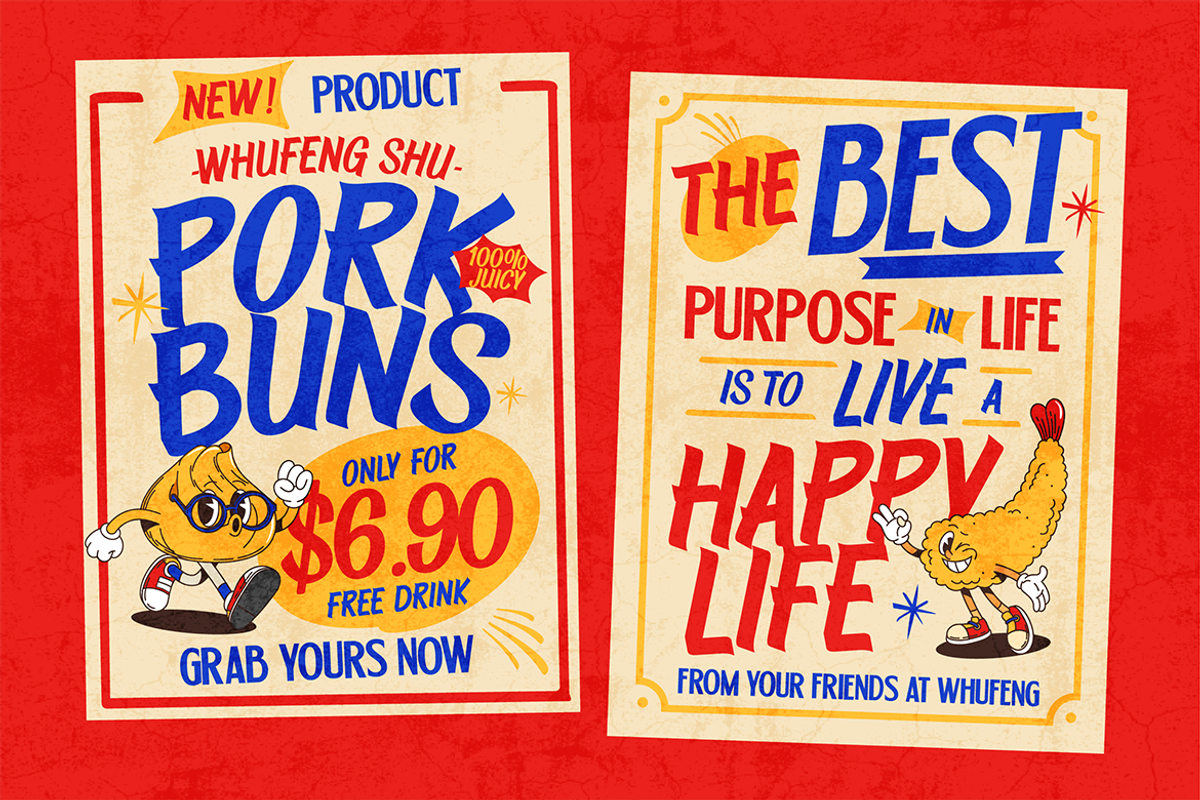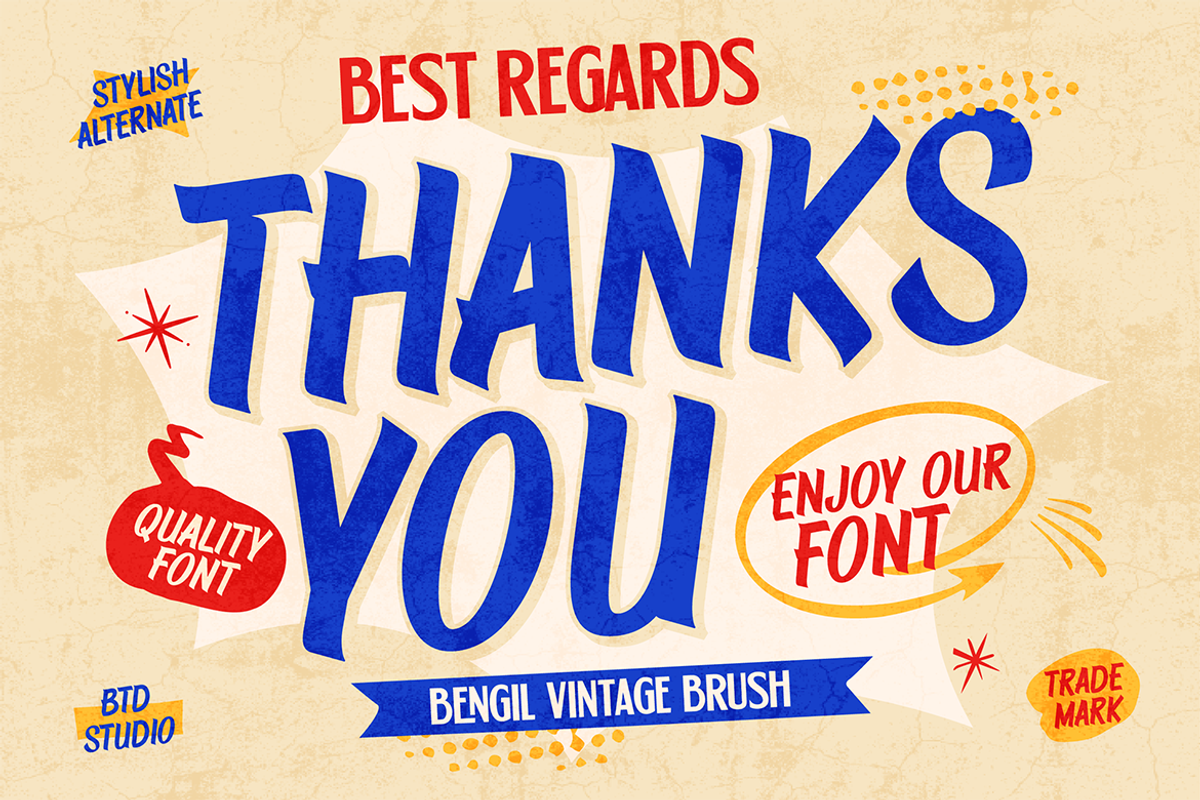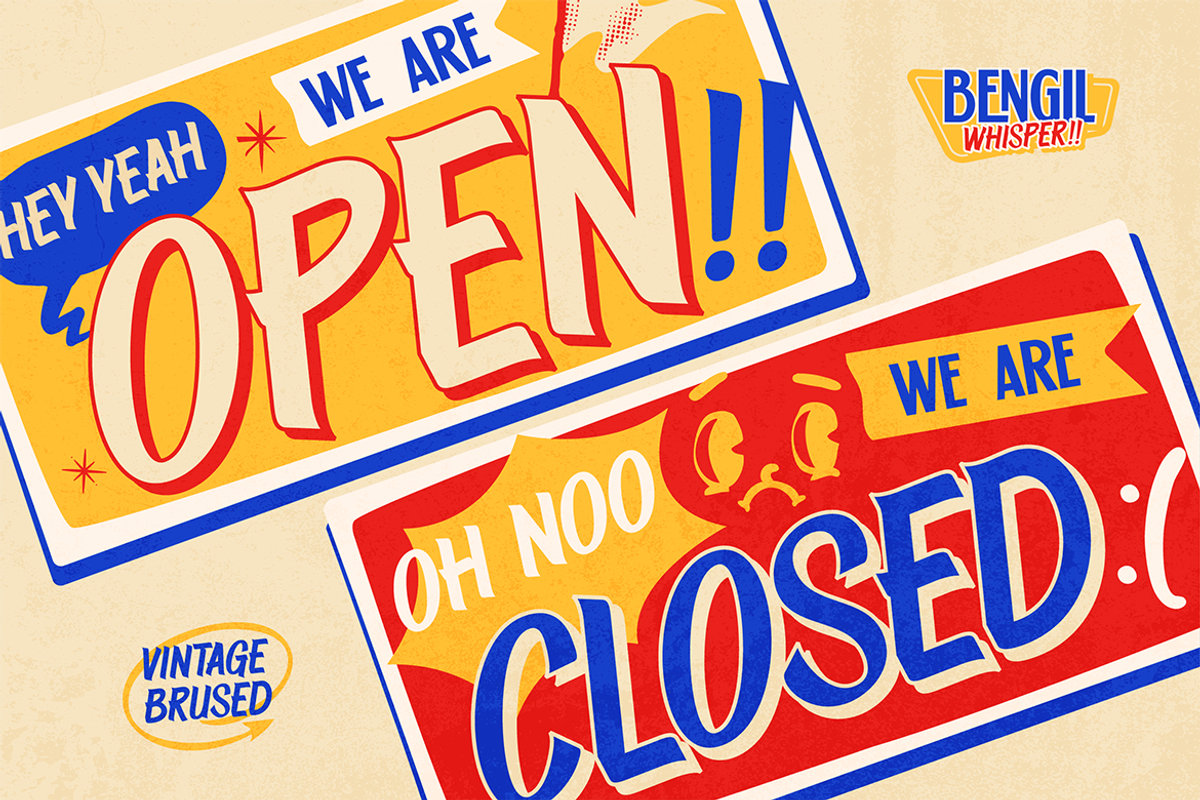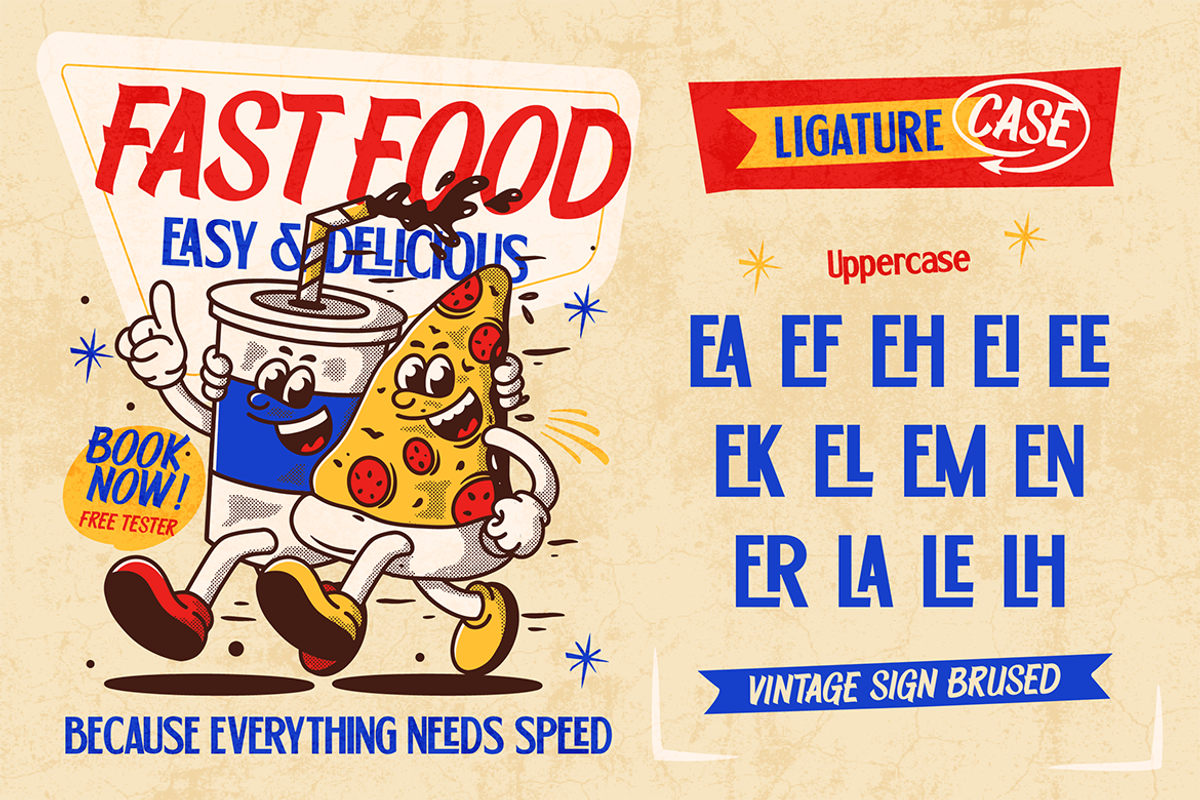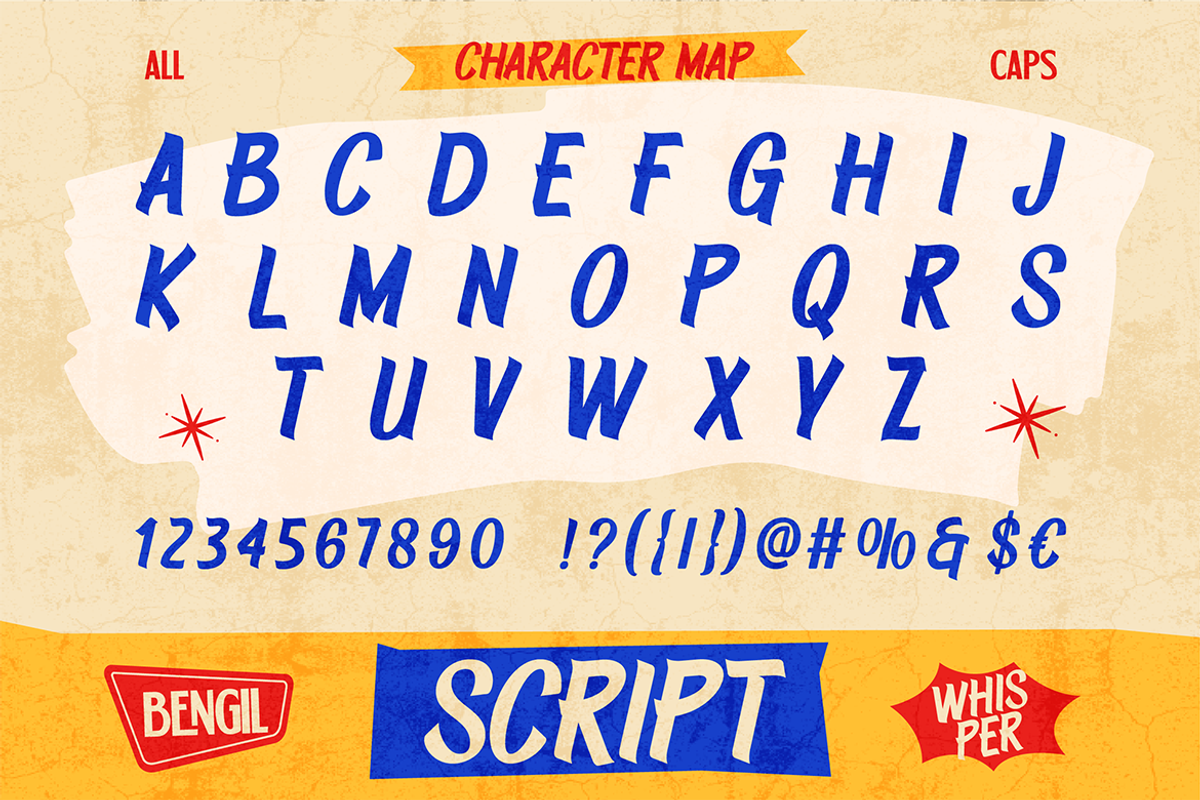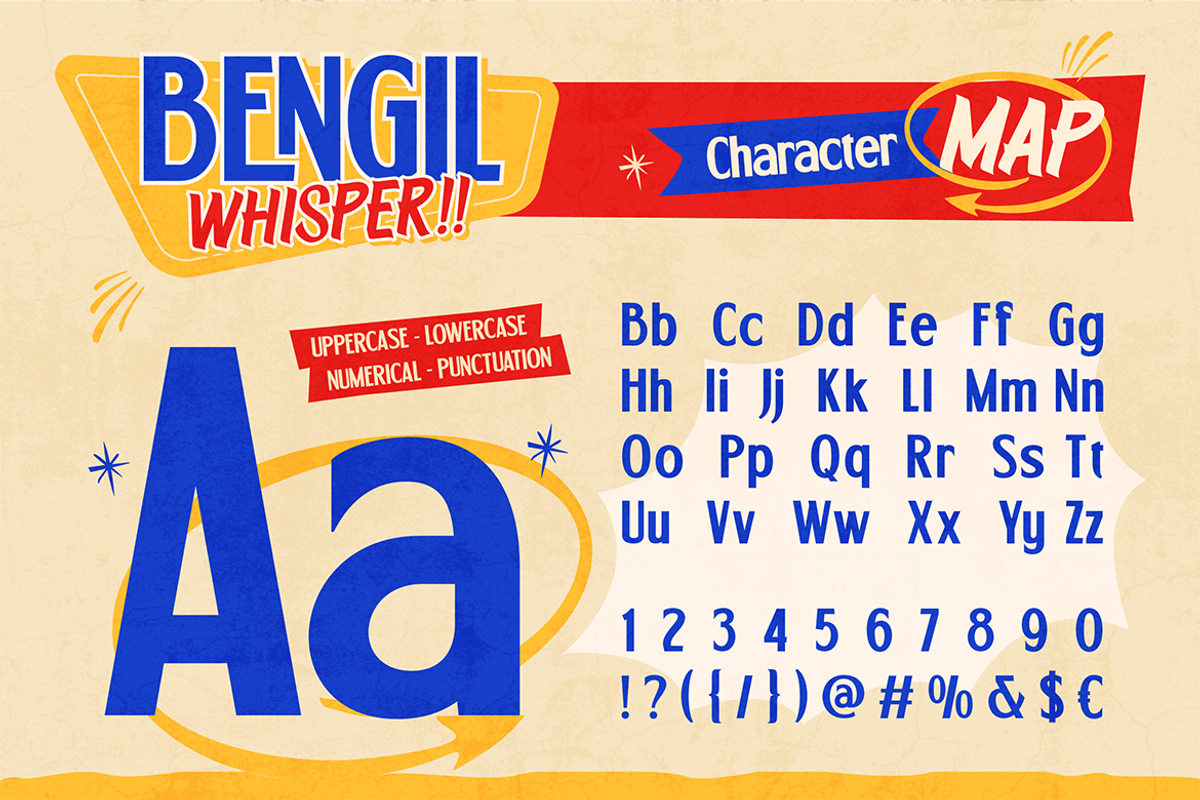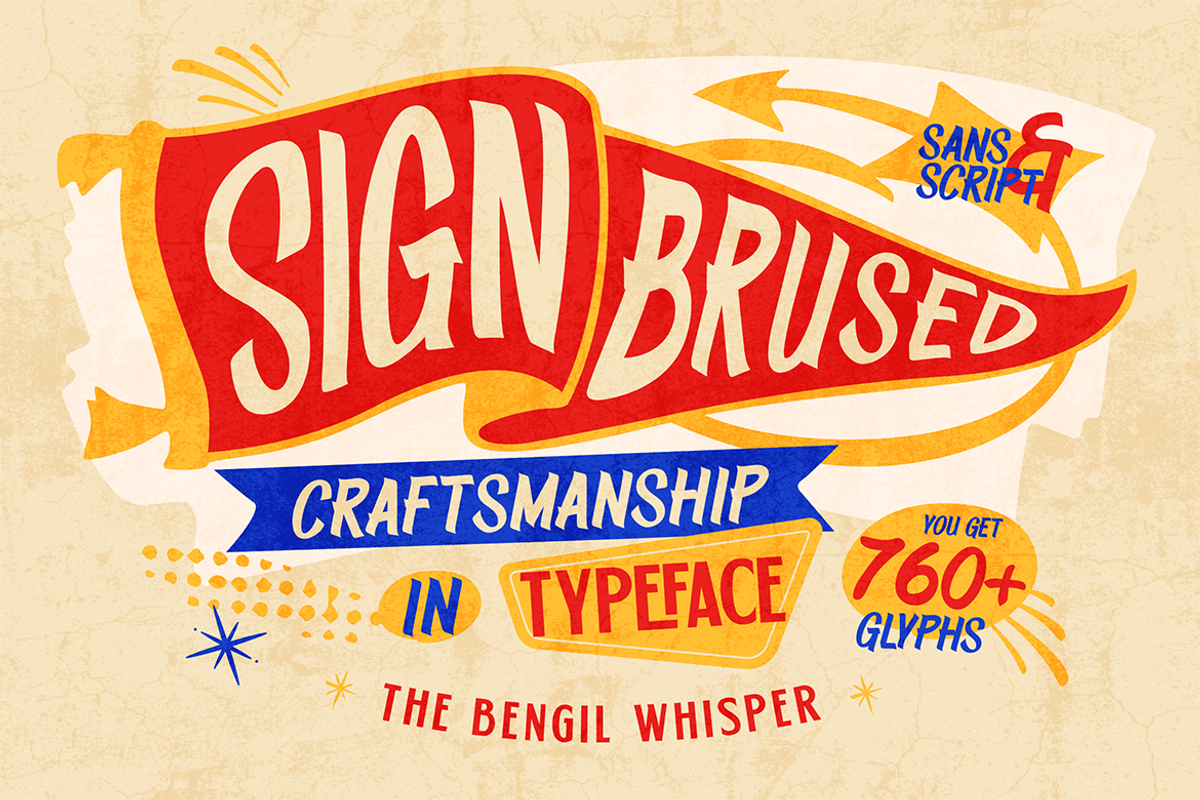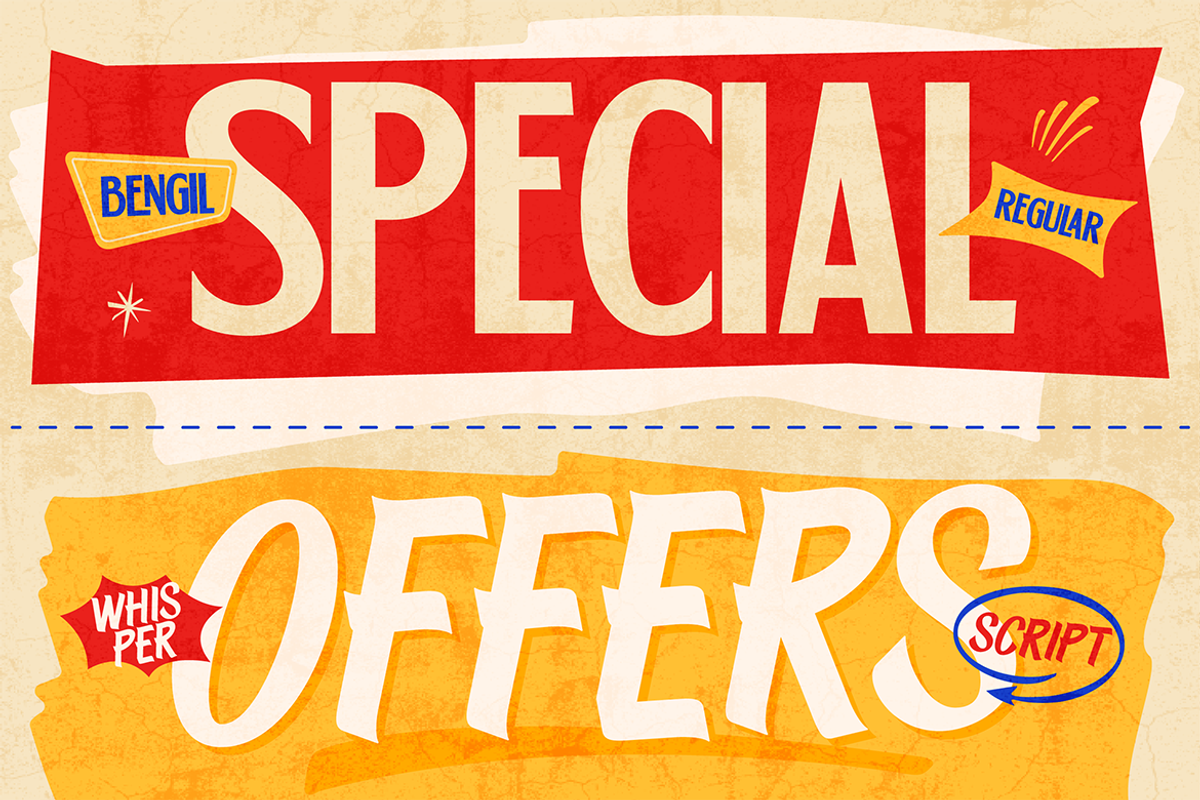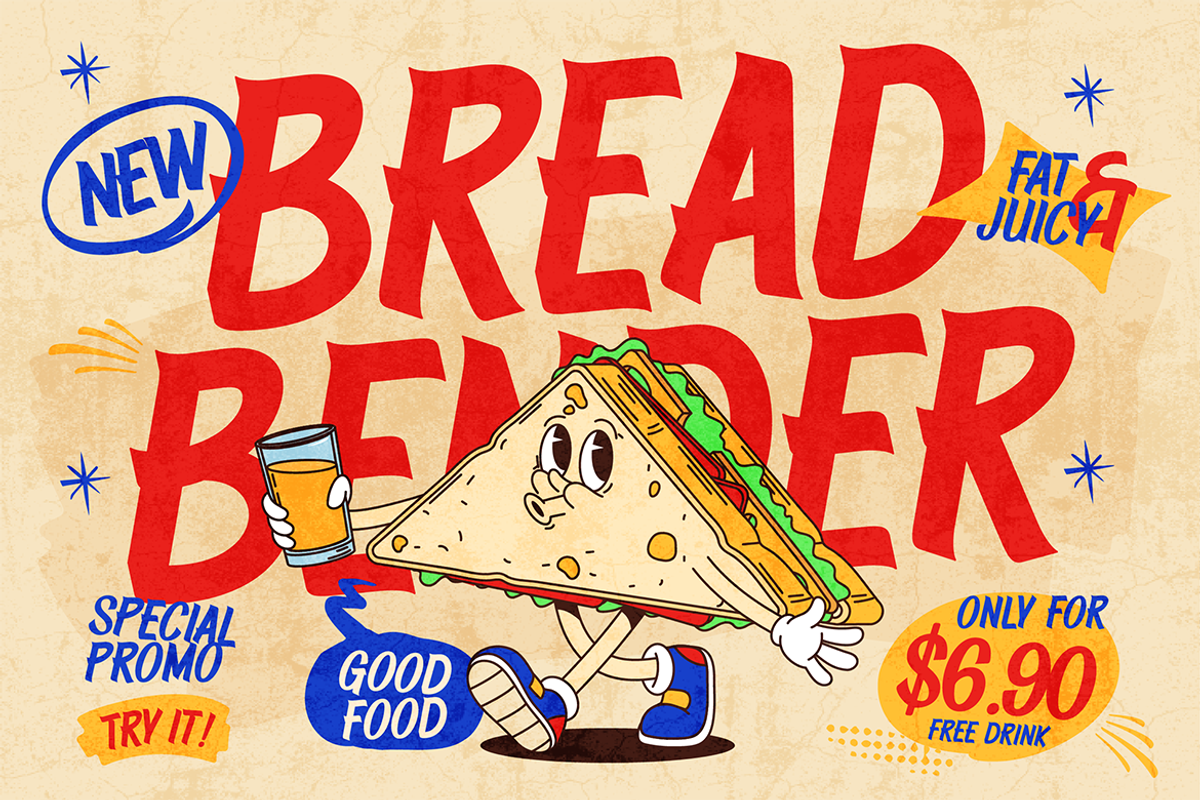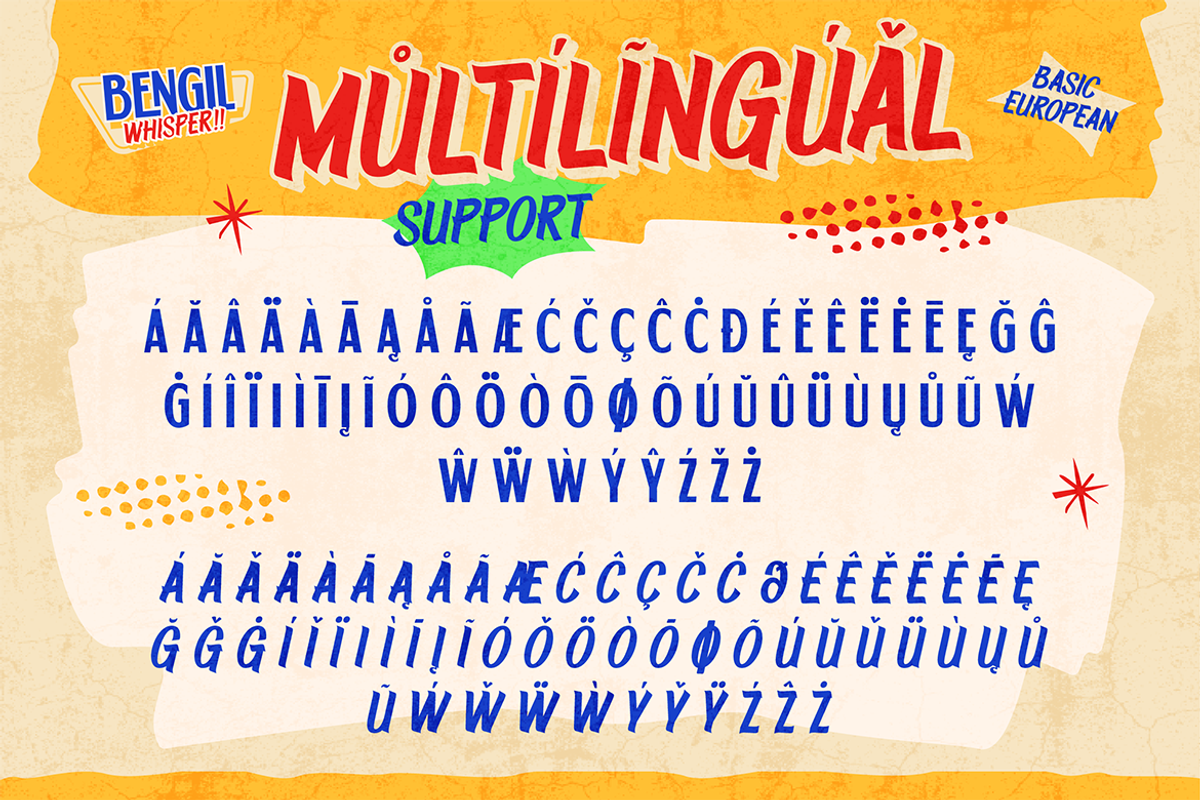
Bengil Whisper
Say hello to Bengil Whisper, the loud, playful, and slightly chaotic font that feels like a street market yelling “BUY 1 GET 1 FREE!!” It’s bold, it’s quirky, and it definitely knows how to grab attention. Designed with a mix of decorative sans serif and brush script style, Bengil Whisper brings vintage sign vibes with a modern twist. Perfect for promos, posters, street food branding, packaging, retro ads, social media banners, fast food menus, or anything that needs BIG personality and high energy. Featuring 760+ glyphs, alternates, and punctuation, you’ve got tons of creative room to experiment. Mix the clean sans with the brush script to create fun typography combos that feel alive and super expressive. Whether you're shouting a NEW PRODUCT, a LIMITED DEAL, or creating nostalgic retro designs — Bengil Whisper makes every word feel louder, funnier, and absolutely unforgettable.
A - Z set (Uppercase & Lowercase)
Number
Bengil Whisper Characters Map